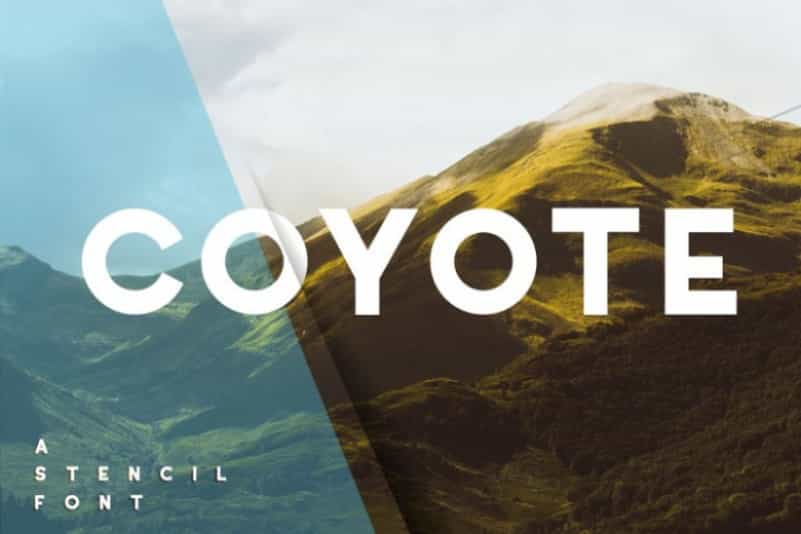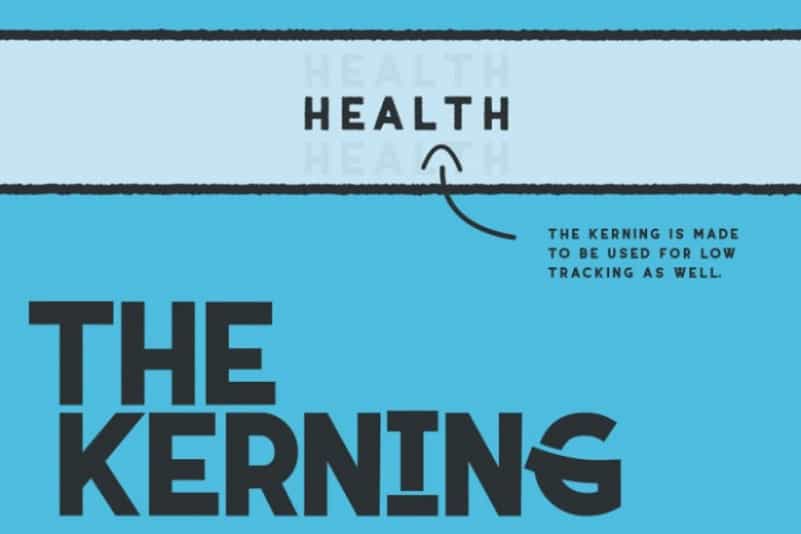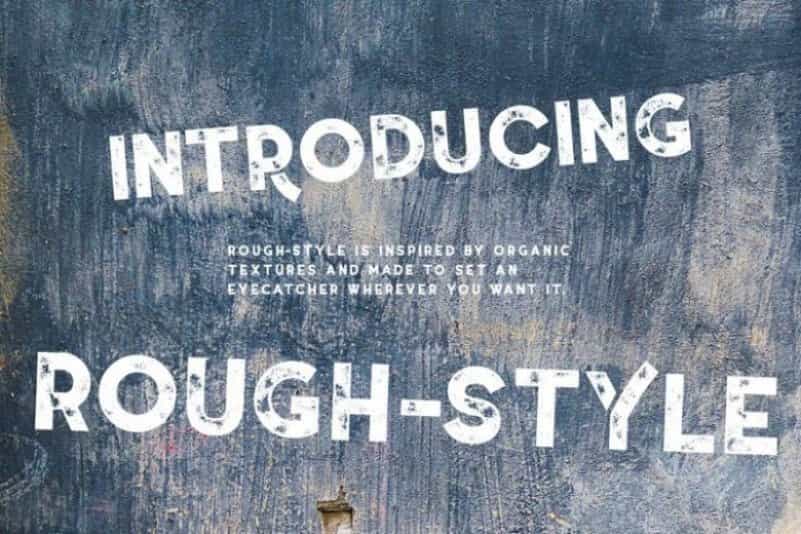
Introducing Coyote Retro Font. It’s a fancy retro type with sharp edges to bring out the calm character of the font or you can get a little crazy with the alternative letters. Reach out to us anytime for Amazing Branding ideas, logos, labels, T-shirts, brochures, and more!